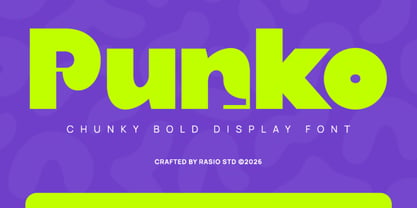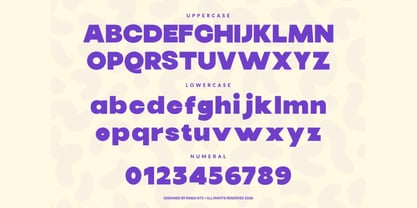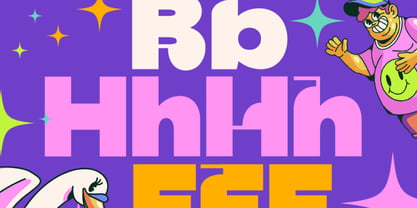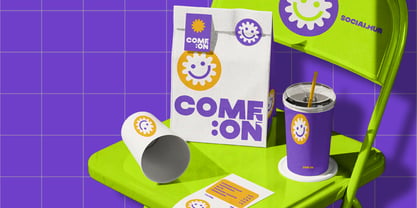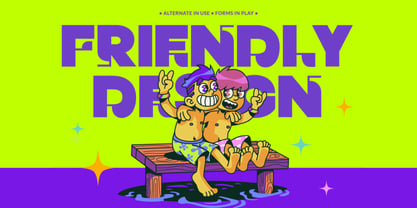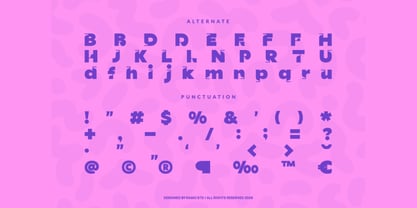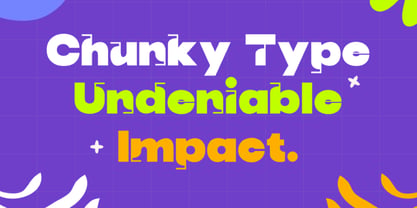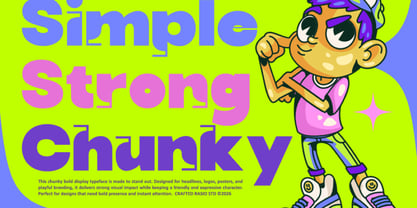
Punko
by Rasio Studio
The Punko Font Family was designed by Fajar Indra and published by Rasio Studio. Punko contains 1 styles. More about this family
Punko is a chunky bold display typeface featuring thick rounded shapes, compact proportions, and expressive letterforms that create strong visual impact. Designed with playful geometry and heavy weight structure, it brings a cheerful, loud, and eye-catching personality to headlines and large typography. Punko delivers strong personality and high readability at large sizes, making it effective for attention-grabbing headlines, playful branding, youth-focused products, posters, packaging, and digital content. The bold weight and soft curves communicate friendliness and energy, perfect for designs that need a fun and approachable tone across print or screen.
Designers: Fajar Indra
Foundry: Rasio Studio